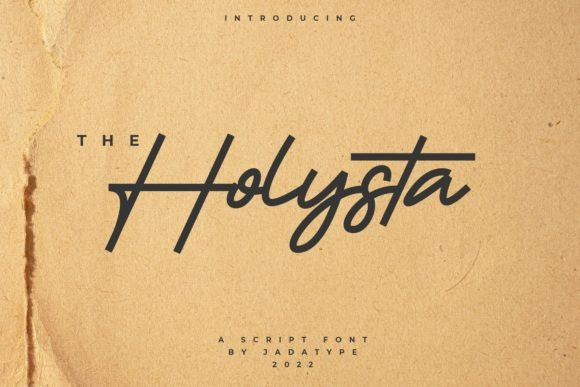
Holysta Font
Holysta is a delicate script font with a neat feel. It can be used for your work, products, events, weddings, commercial products, and others.